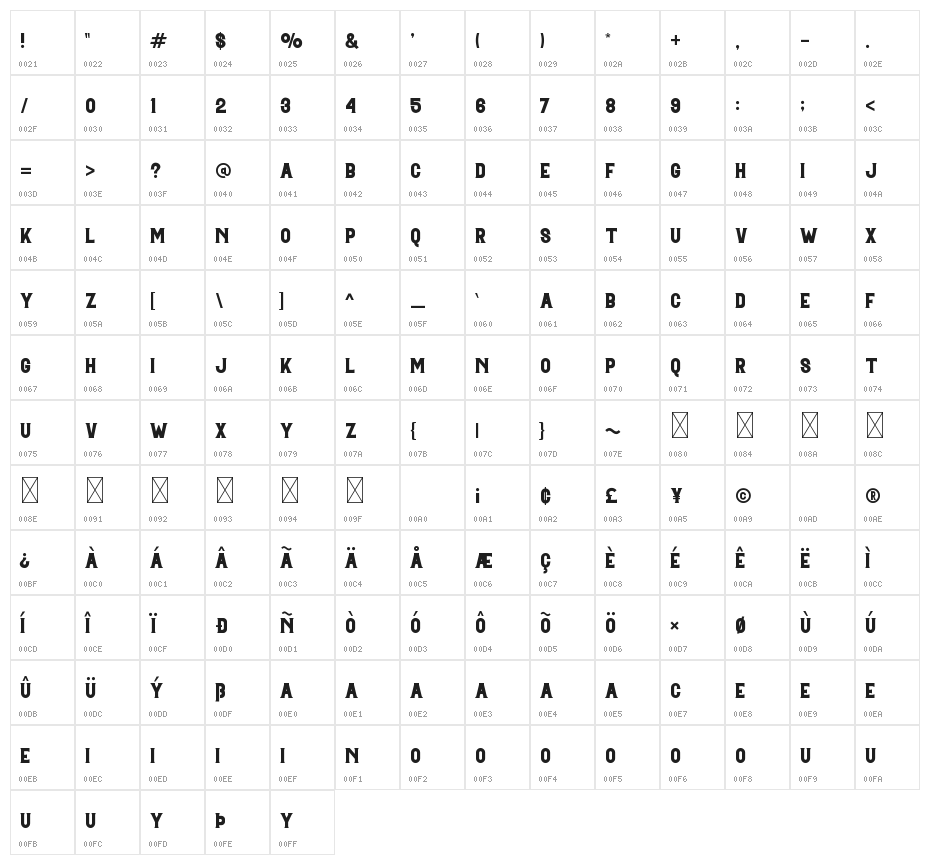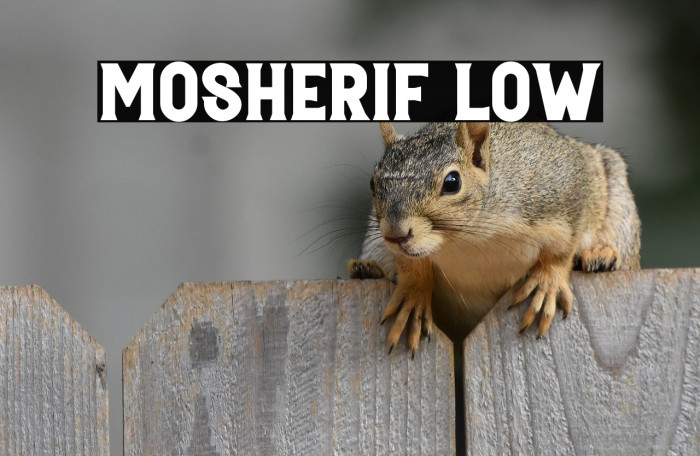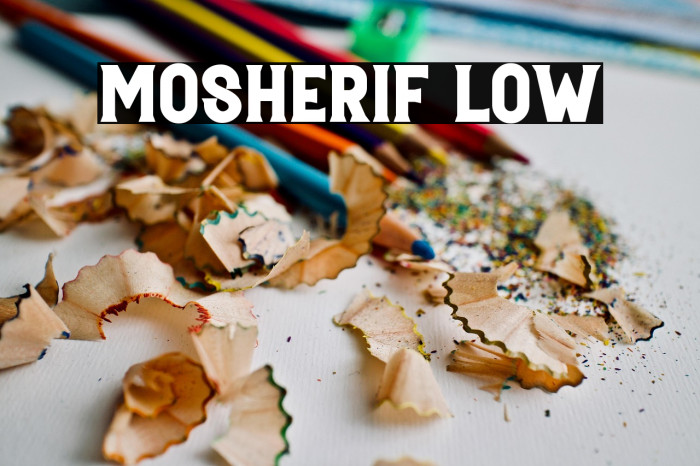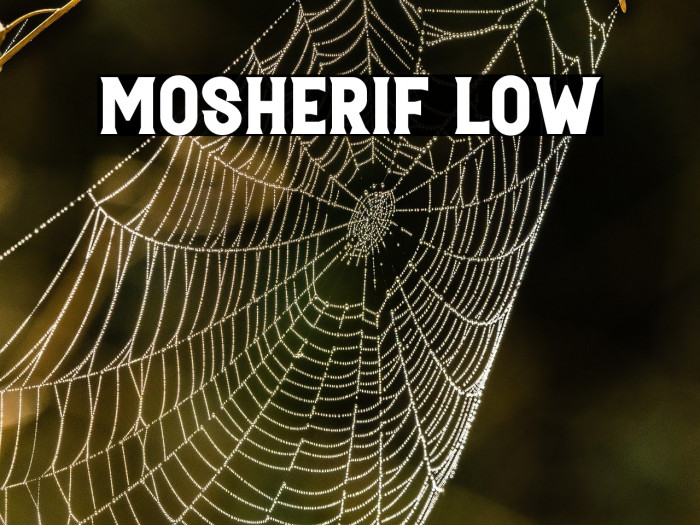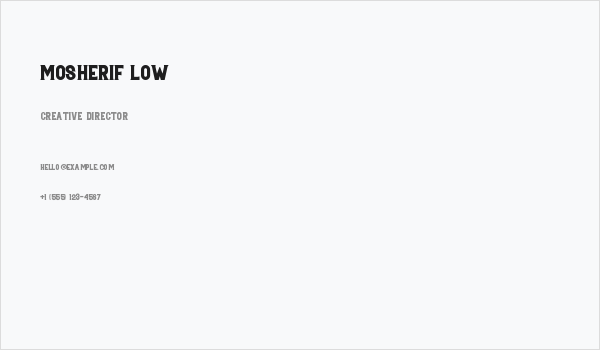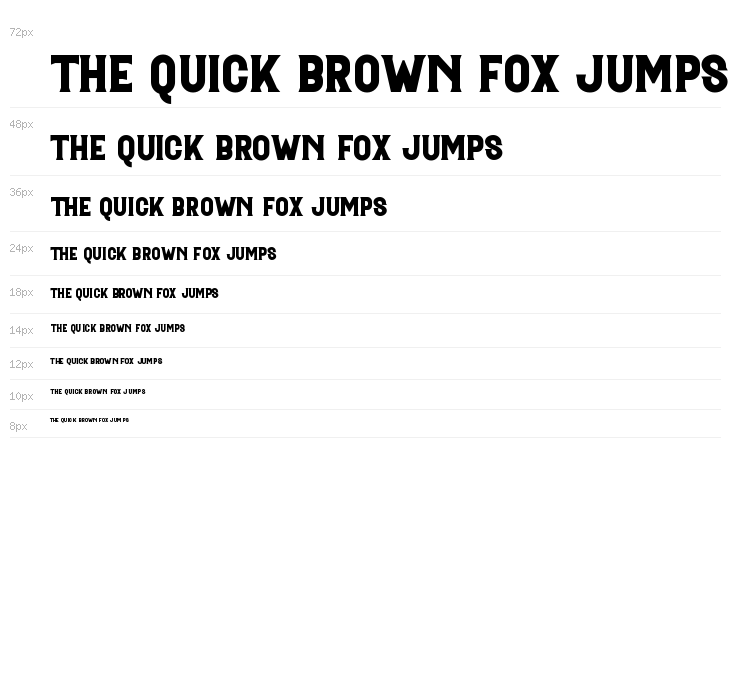
Mosherif Low Font
Mosherif Low Description
This font features bold, thick strokes with a strong presence, making it ideal for impactful headlines and titles. The characters are well-defined with a slightly condensed appearance, giving them a robust and sturdy look. The uppercase and lowercase letters maintain a consistent style, while the numbers and special characters are designed to complement the overall aesthetic. The font's boldness and clarity make it suitable for various design projects that require a commanding visual element.
| Proposed Projects | Perfect for posters, banners, branding, and any design requiring a strong visual impact. |